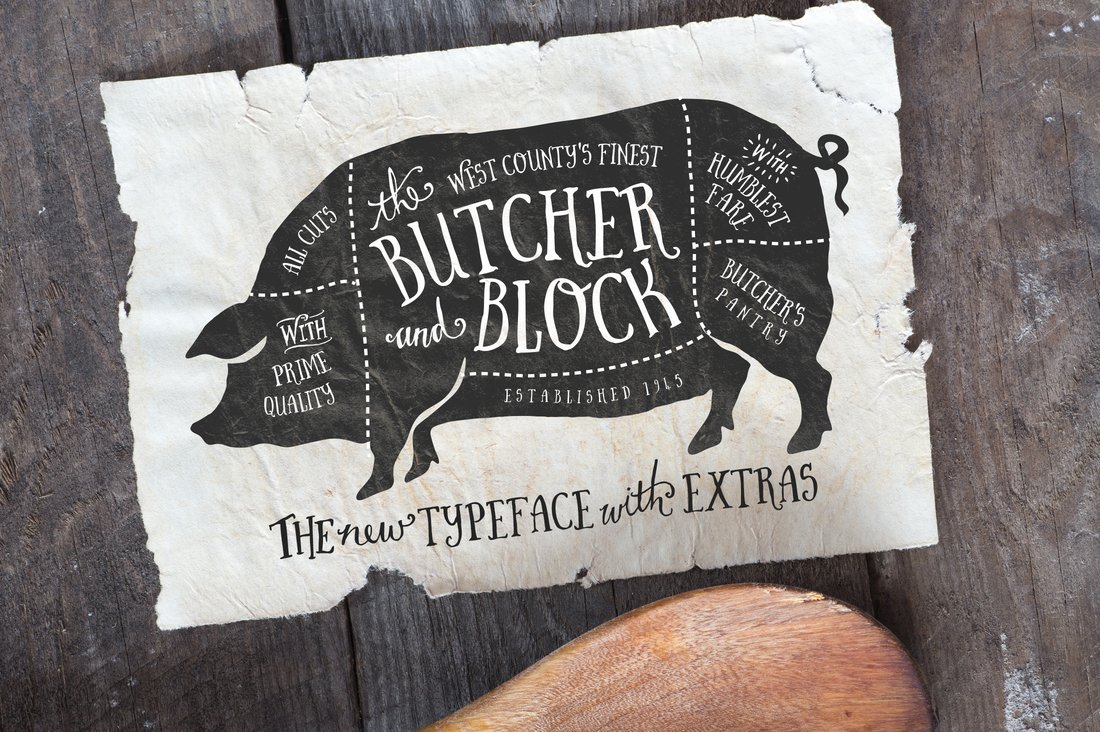
Butcher and Block Font & Extras
Butcher and block letters are constructed with wobbly edges and imperfectly formed characters - just like you would draw them yourself freehand.
A handy dingbat font with catchwords and ampersands are included ( see preview images above) - build them into your type designs for imaginative farm style branding and designs.